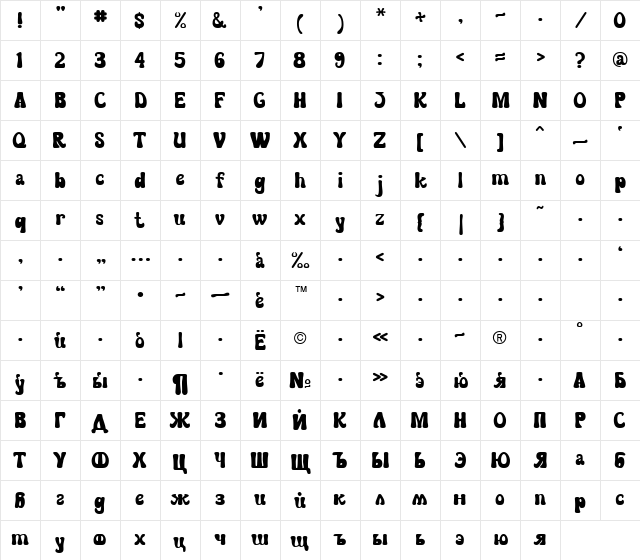
FreeStyleCyr Bold
Design Context for FreeStyleCyr Typeface
FreeStyleCyr offers clean, dependable letterforms without strong stylistic allegiance, making it a practical choice for designers who need flexibility. The heavy weight commands attention and anchors typographic hierarchies.